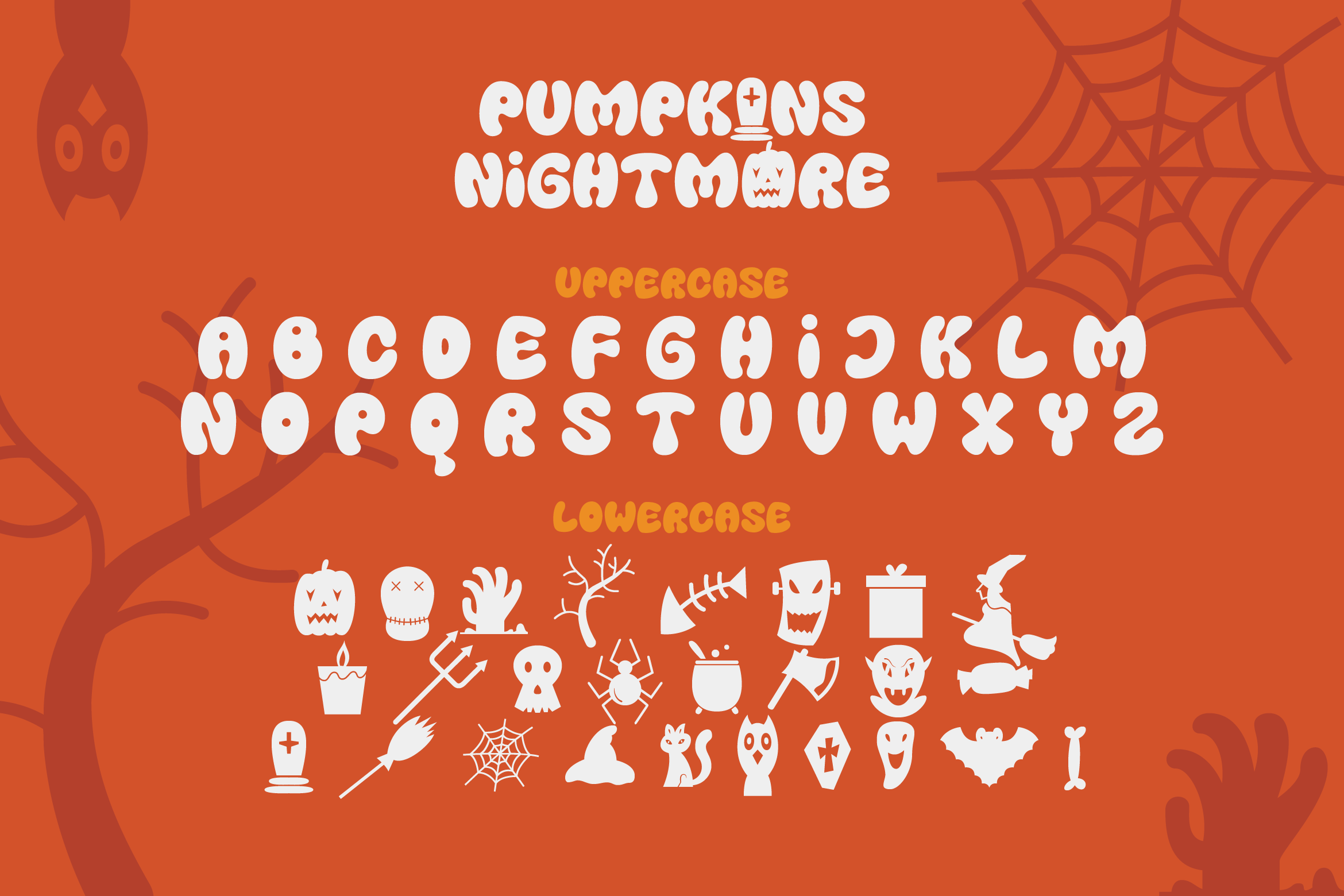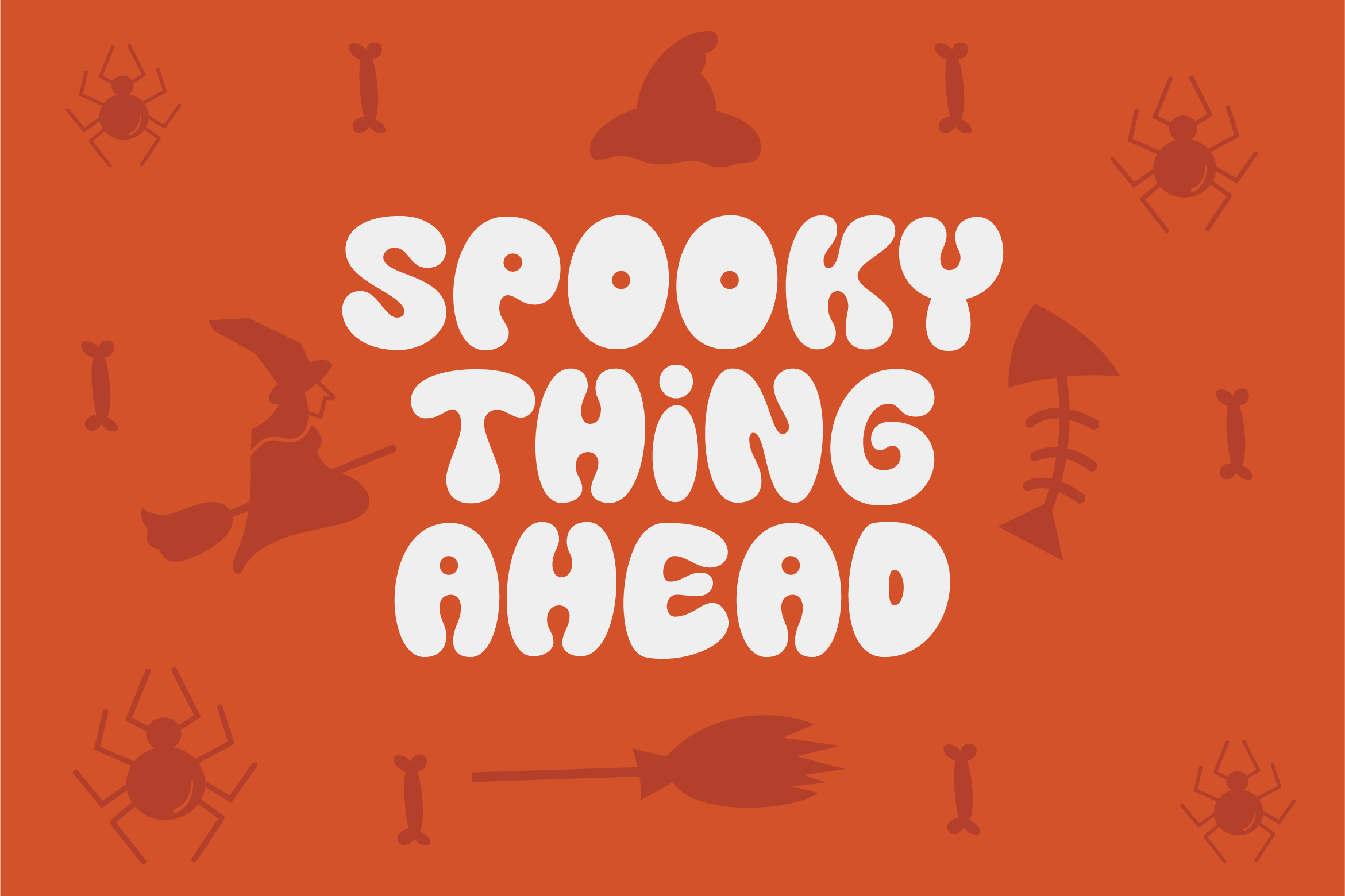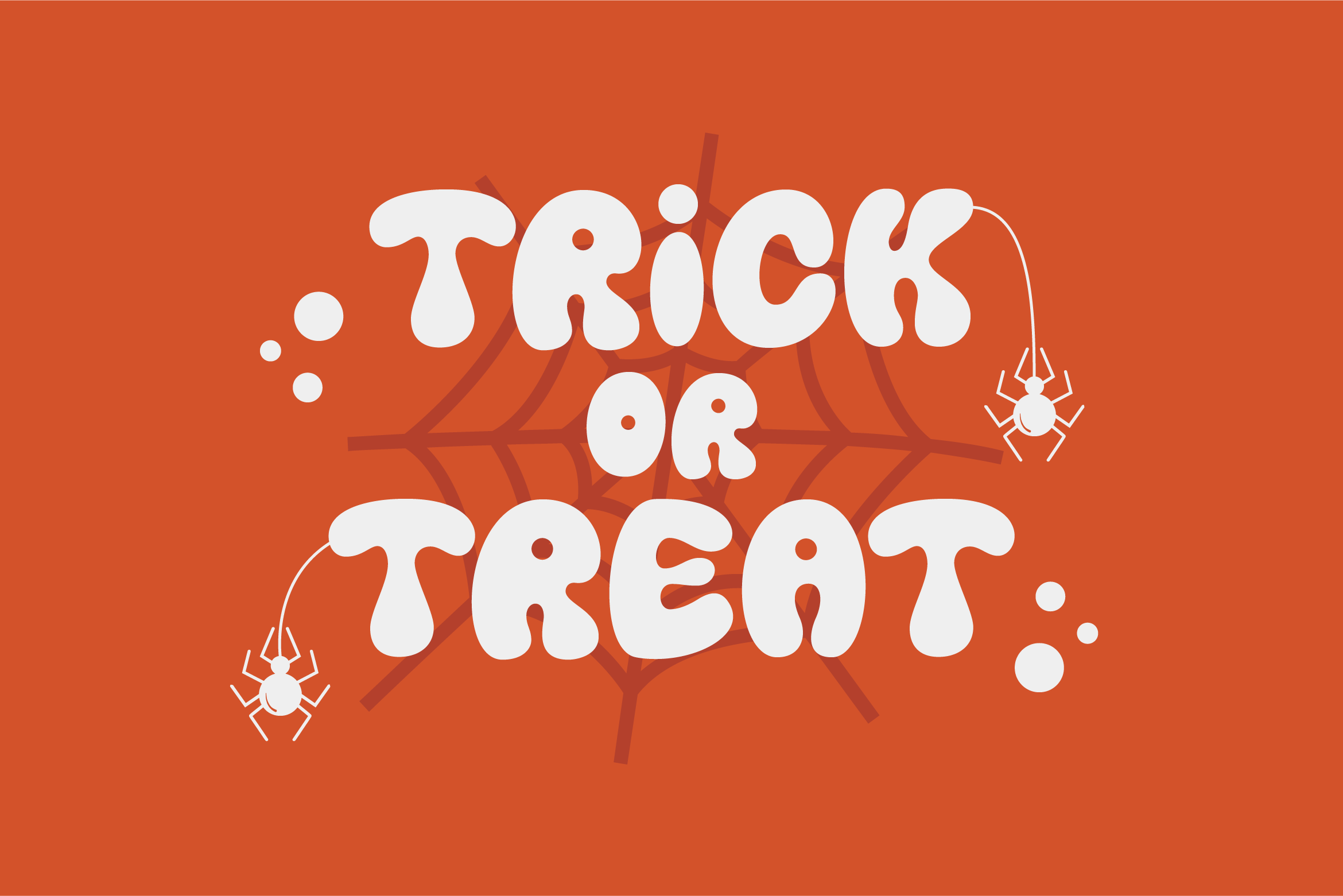
Pumpkins Nightmare Font
Pumpkins Nightmare Display Font is a bold and spooky display font with cute letters. Masterfully designed to become a true favorite, this font has the potential to bring each of your creative ideas to the highest level! Add it to your Halloween crafts, horror movie posters, t-shirts, and anything else that requires a spectacular look.